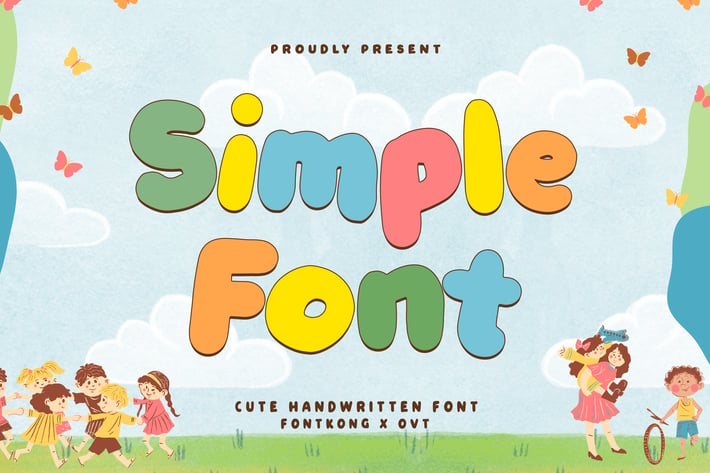
Simple Font - Cute Handwritten Font
Introducing "Simple Font," a cute handwritten font that effortlessly adds charm and personality to your designs. With its playful strokes and friendly demeanor, Simple Font brings a sense of warmth and whimsy to any project.
Crafted with care, Simple Font is perfect for a wide range of applications including greeting cards, invitations, posters, social media graphics, and more. Each letter is delicately hand-drawn to capture the spontaneity and authenticity of handwritten script, making your designs feel approachable and inviting.
The "Simple Font" includes a full set of uppercase and lowercase letters, numbers, and punctuation marks, ensuring versatility and flexibility for all your design needs. Whether you're designing for print or digital, Simple Font will elevate your projects with its cute and charming aesthetic.
Add a touch of sweetness and personality to your designs with the adorable Simple Font handwritten font.